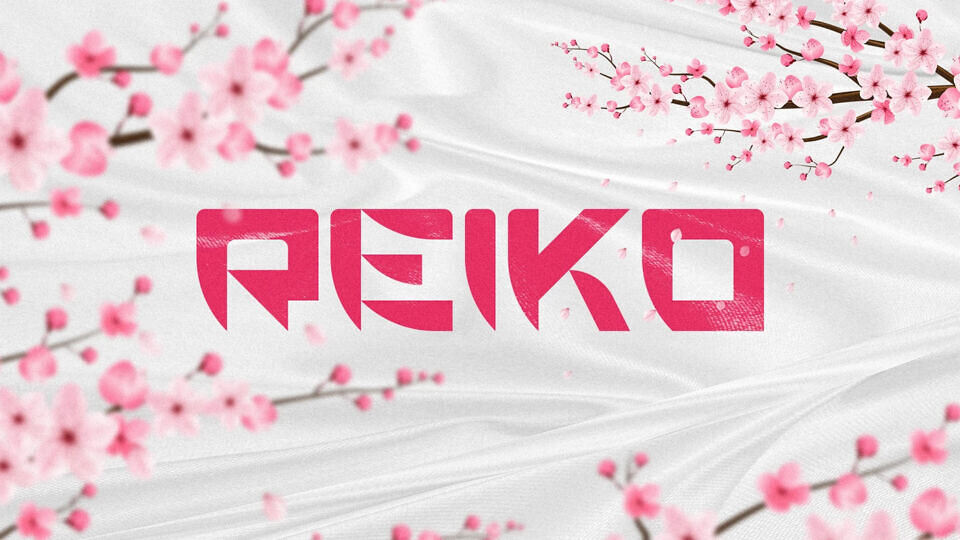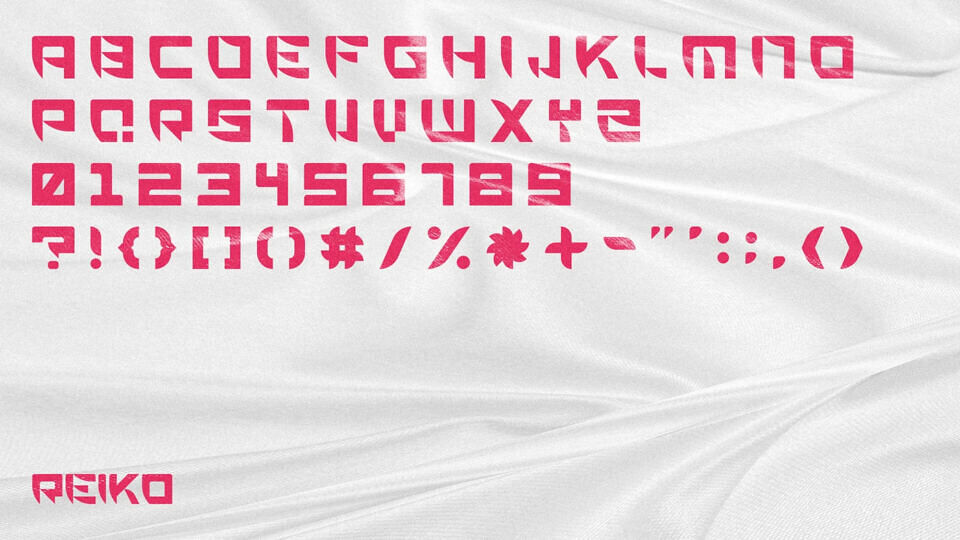
Reiko is a futuristic display font inspired by the refined balance of Japanese design — combining geometric precision with elegant minimalism. Its sharp cuts and curved details make it ideal for logos, posters, branding, packaging, and tech-inspired visuals.
Perfect for anyone seeking a clean yet bold aesthetic that feels both modern and traditional, Reiko embodies harmony, precision, and simplicity — the essence of Japanese artistry.
Design Concept: “Reiko” (れいこ / 玲子) means beautiful, wise child in Japanese — a reflection of balance and purity. The font captures this spirit through precise shapes, strong rhythm, and minimal form.